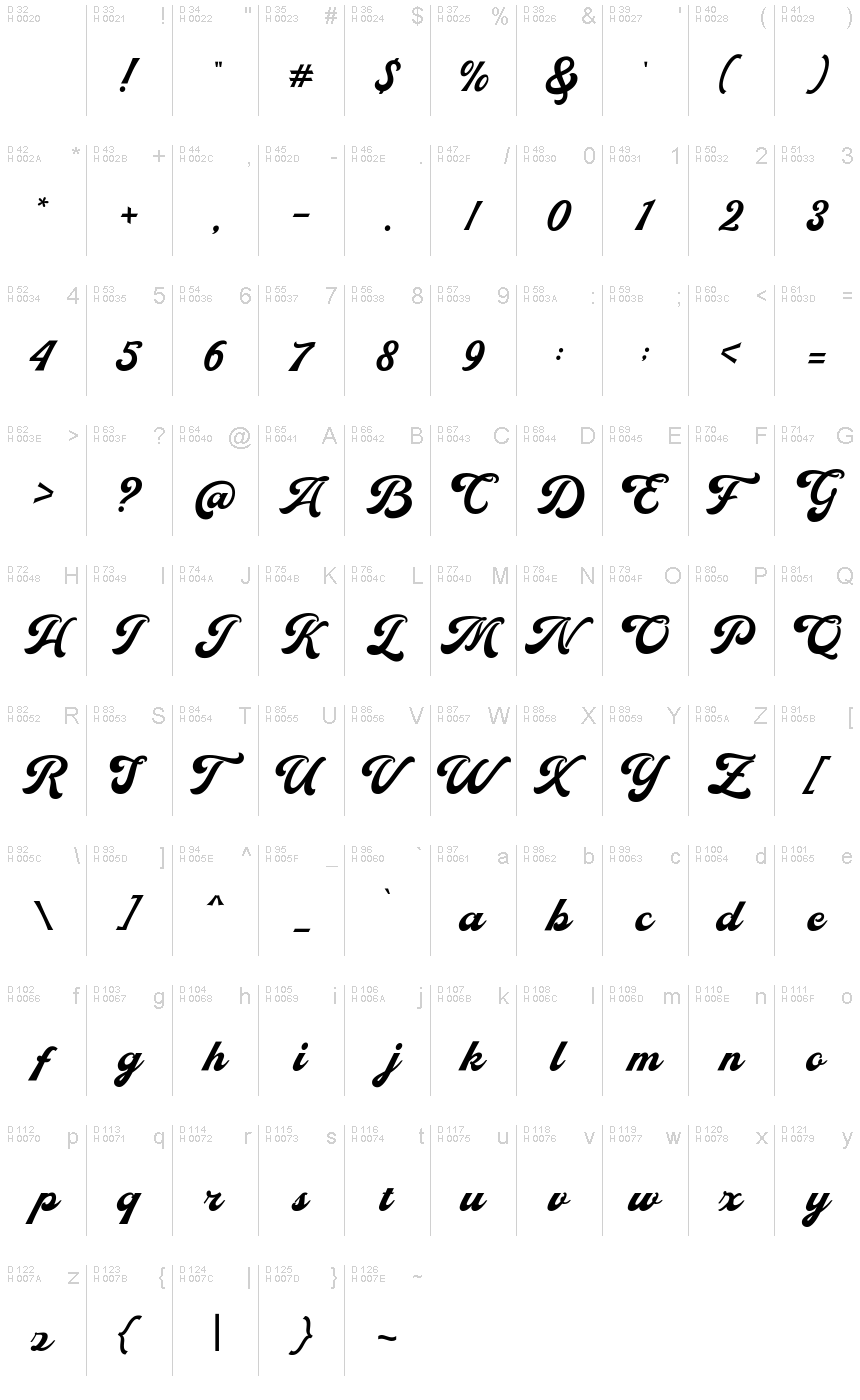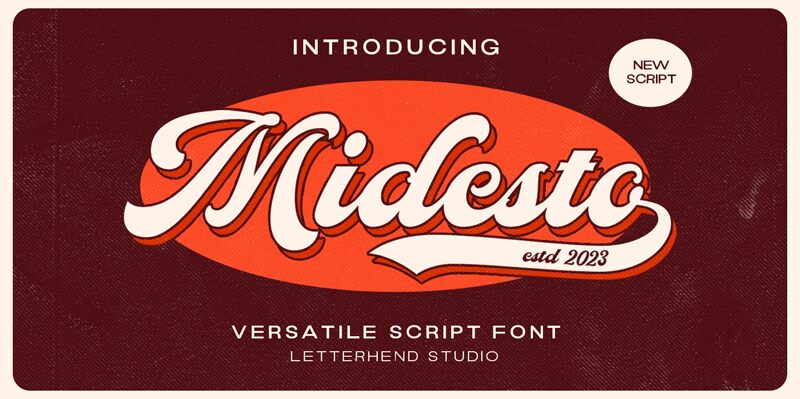
Midesto-Regular
Midesto, designed by Letterhend Studio, captures the essence of retro artistry with a bold script style that evokes nostalgia while staying refreshingly modern. Its striking curves and exaggerated swashes give it a vibrant personality, making each letter dance with energy and flair. The font's playful yet assertive design ensures it stands out in any context.
Perfect for branding, packaging, or event posters, Midesto adds a touch of exuberance to any project. Its unique character shines in both digital and print applications, making it an ideal choice for creative endeavors looking to make a memorable impact. Whether conveying elegance or fun, this versatile font brings an inviting warmth that resonates with audiences.